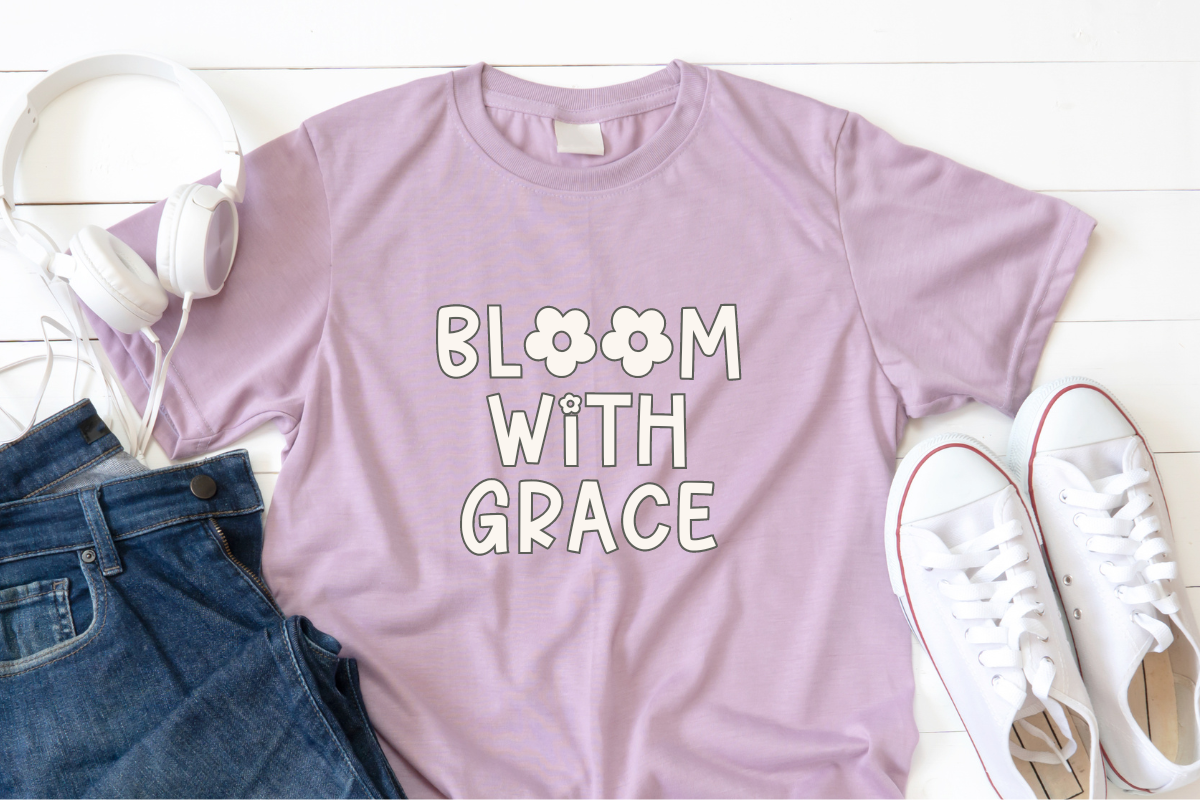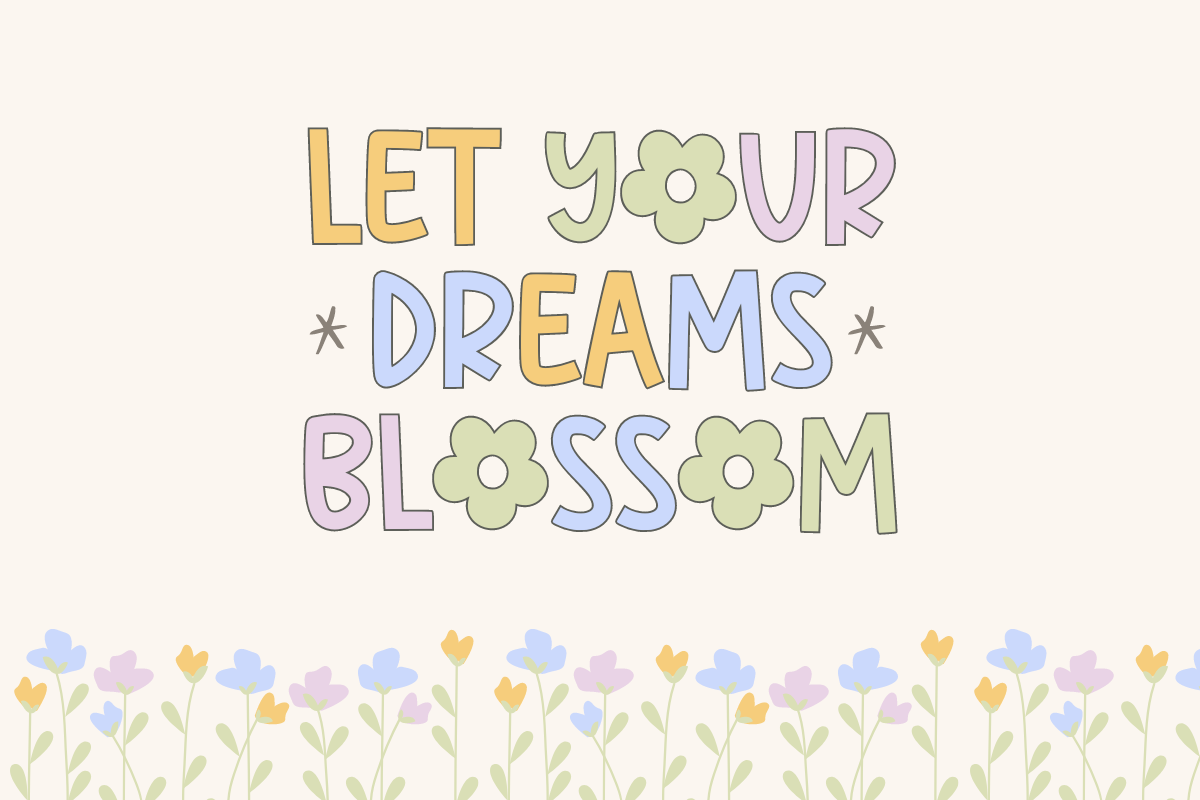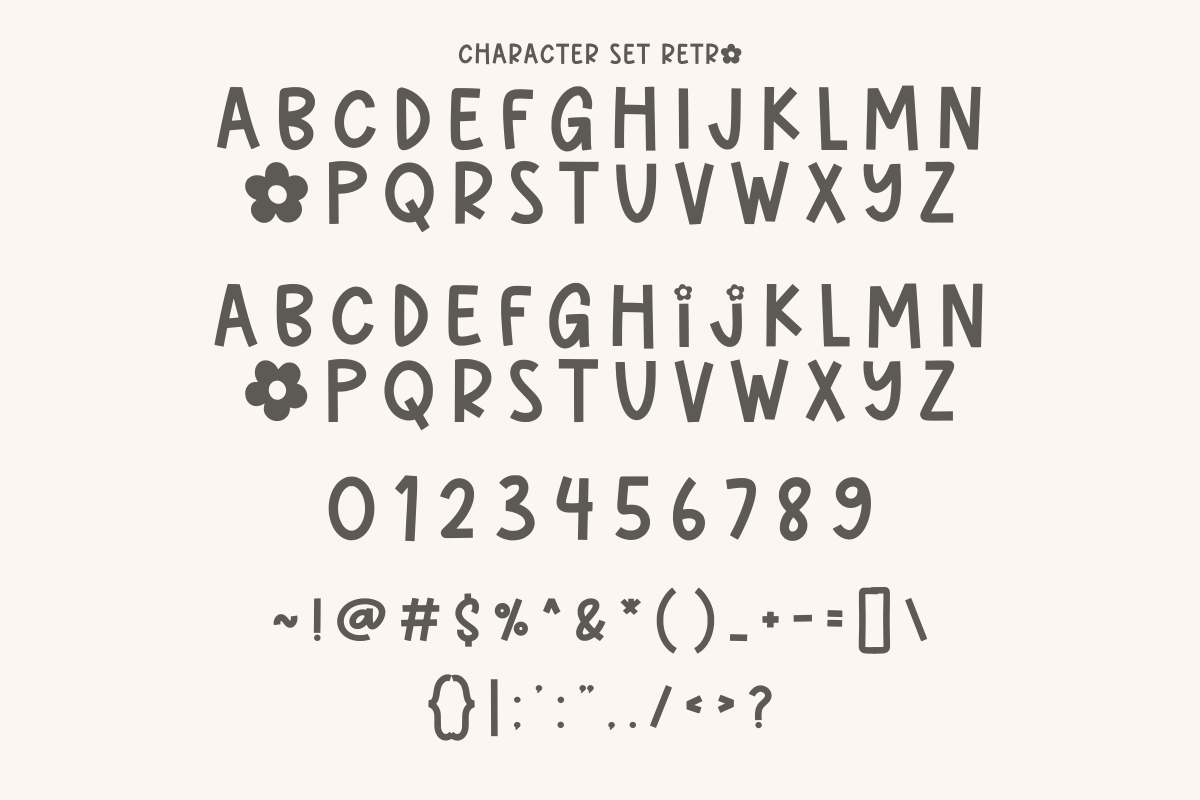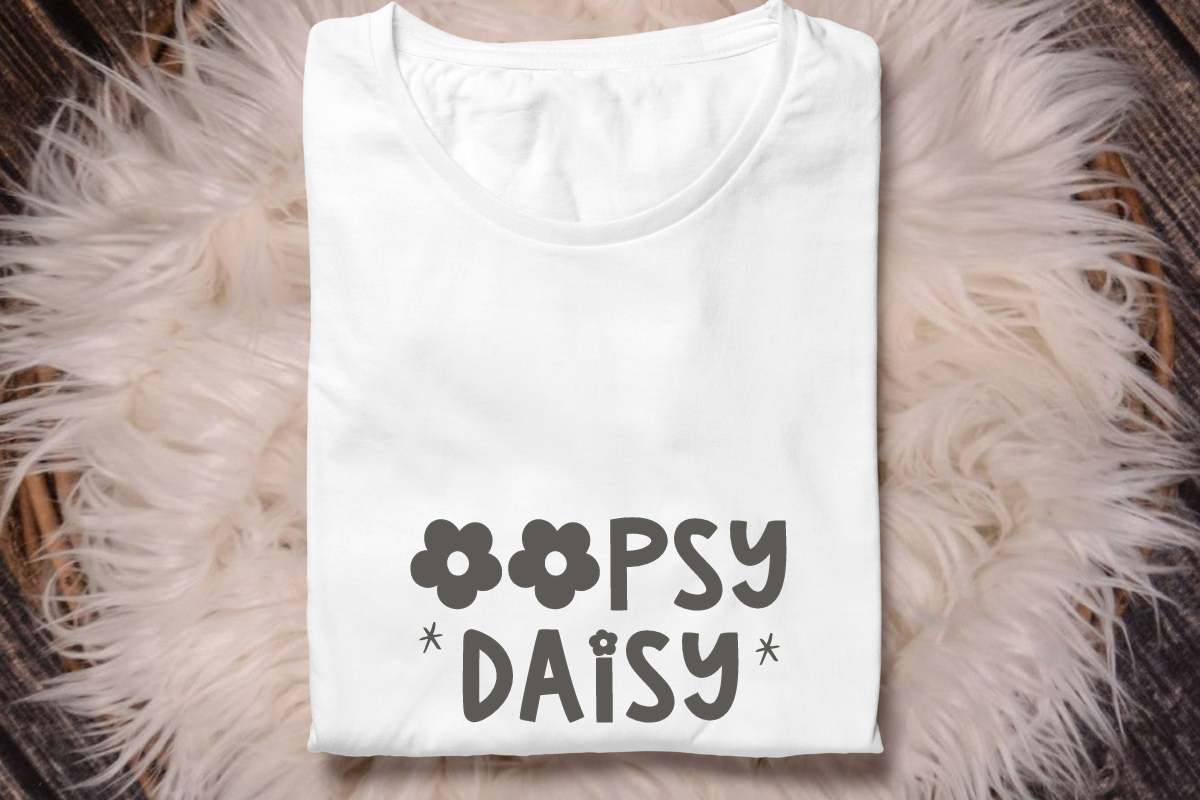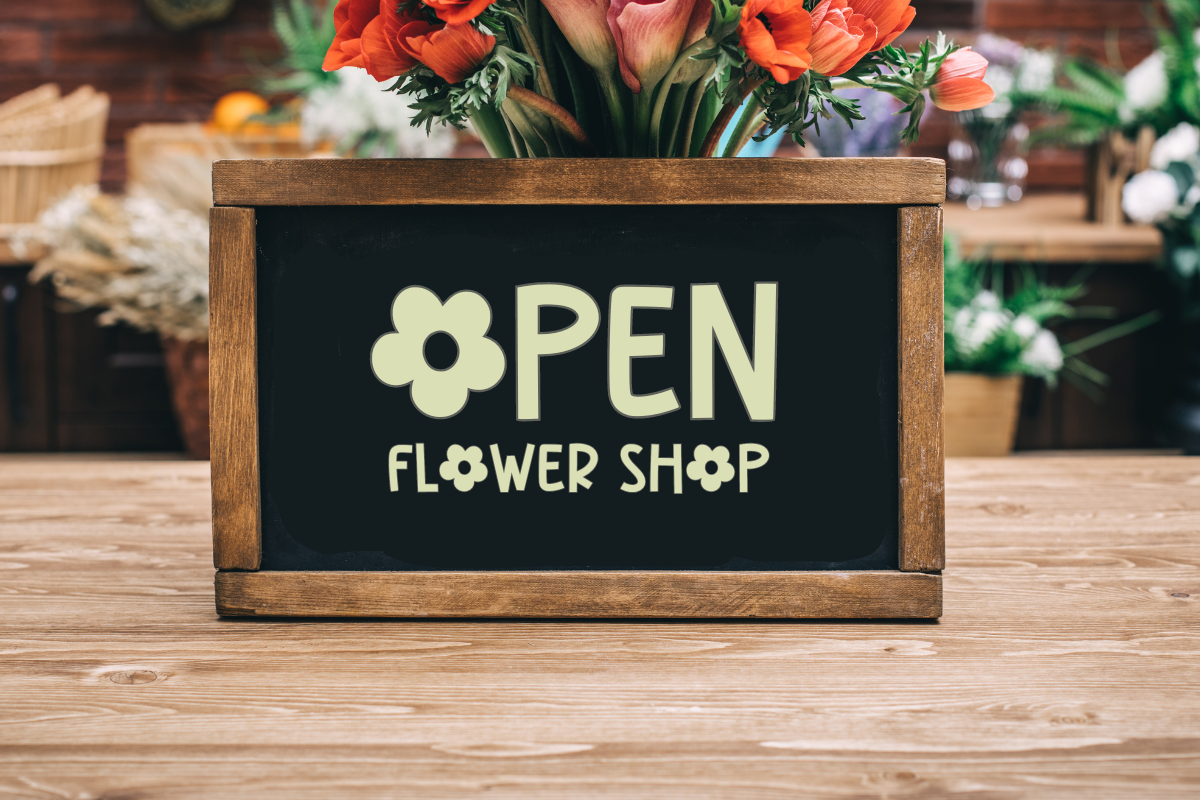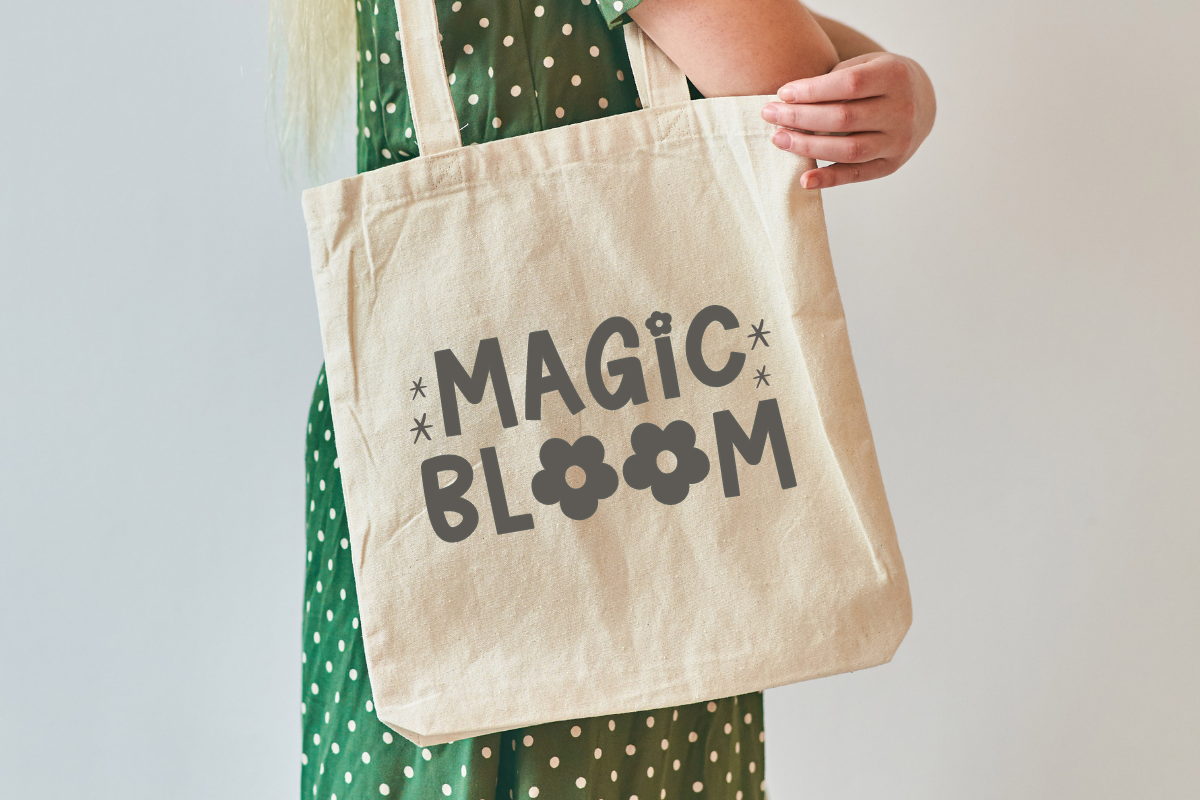
Flowers Blooming
Flowers Blooming is a cute display font. Evocative of a relaxing spring break. Its attractive versatility by combining upper and lower case letters, works wonders in your various design projects such as crafts, t-shirts, children’s t-shirts, home decorative, headlines, branding, posters, mugs, tote bags, quotes, and many more!